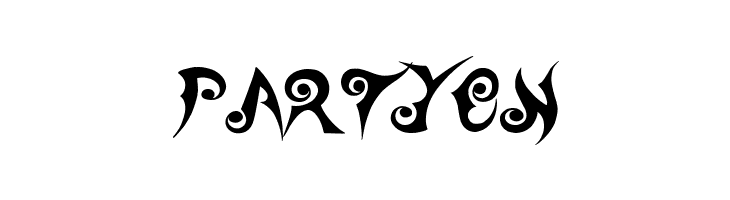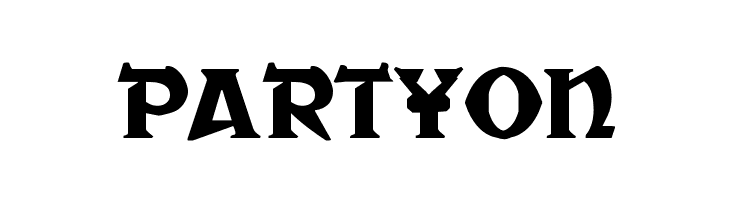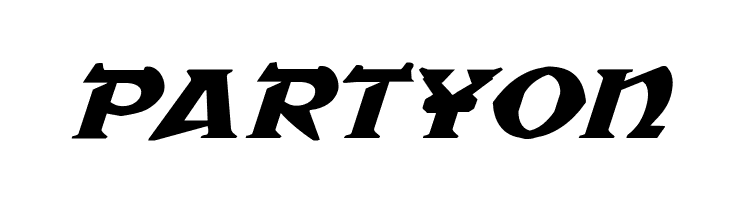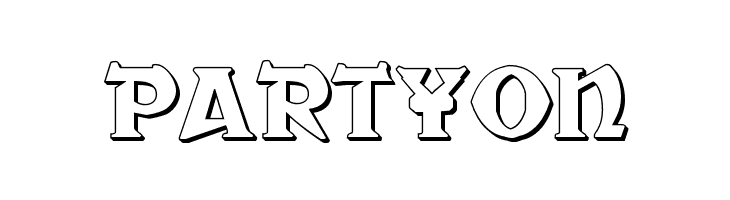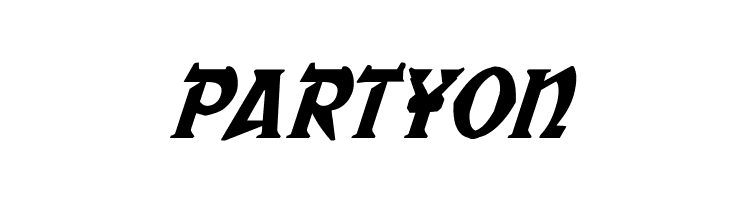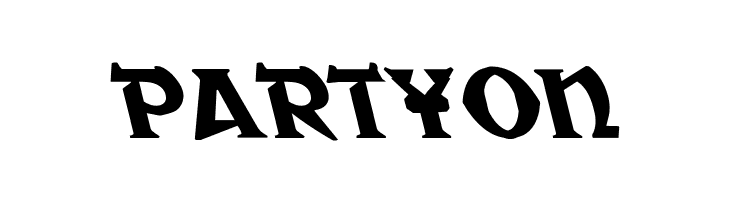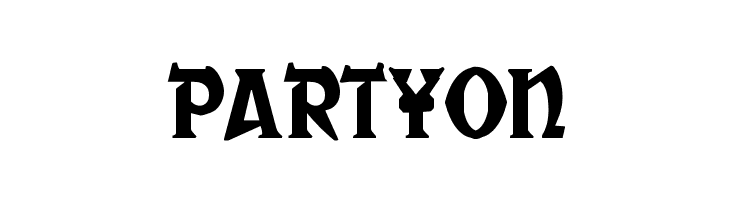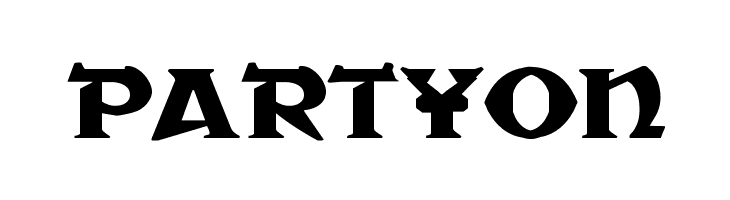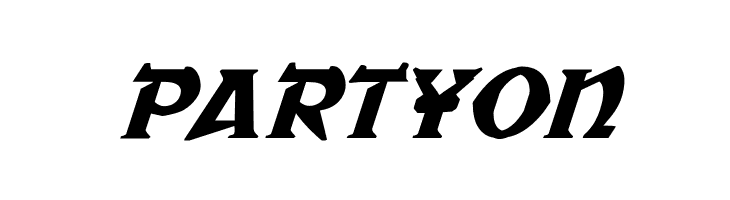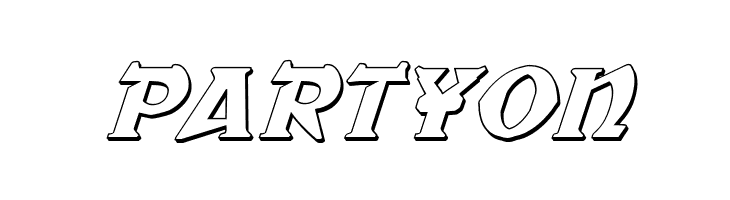
• Wander Ball
A decorative and whimsical font with bold, swirling elements and intricate detailing.
• War Priest 3D Italic
A bold, 3D italic font with sharp, angular edges and a modern style.
• War Priest 3D Regular
A bold, 3D font with angular, medieval-inspired design.
• War Priest Condensed
A bold, gothic-inspired font with sharp angles and dramatic serifs.
• War Priest Condensed Italic
A bold, condensed italic font with high contrast and dynamic style.
• War Priest Expanded
A bold, angular font with a medieval-inspired design, perfect for fantasy themes.
• War Priest Expanded Italic
A bold, italicized font with sharp angles and expanded width for a striking appearance.
• War Priest Italic
A bold, italic font with sharp, angular lines and a medieval-inspired style.
• War Priest Leftalic
A bold, angular font with a gothic influence and leftward slant.
• War Priest Regular
A bold, medieval-inspired font with sharp angles and strong serifs.